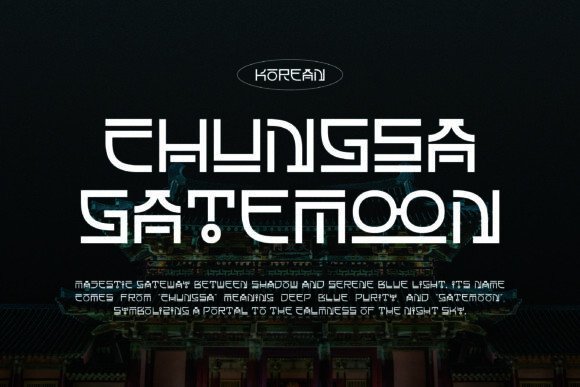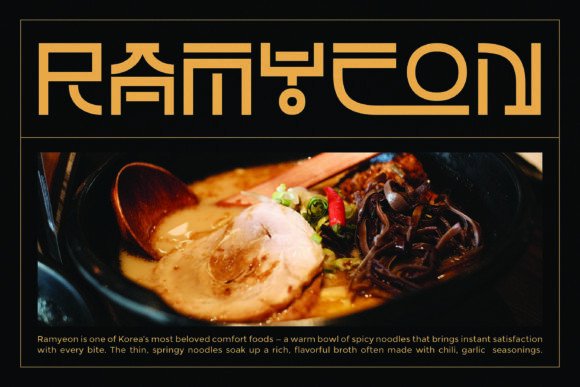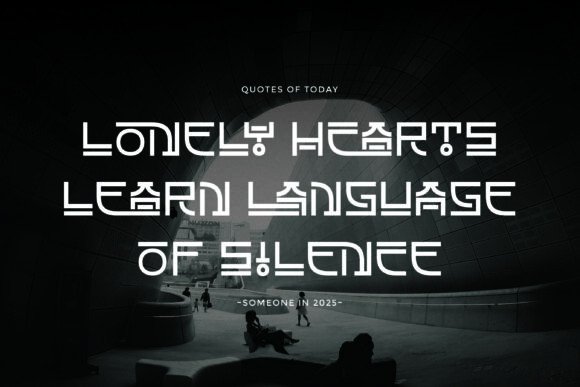
Introduction to Namonjo Font
Namonjo is a unique display typeface inspired by the structure and aesthetic of Korean Hangul script, blending tradition with modern, geometric styling.
This font features strong, mono-linear strokes, sharp angles, and distinctively rounded terminals, creating a compelling fusion of cultural influence and minimalist design The Namonjo typeface is ideal for projects seeking a clean, bold look that references East Asian typographic heritage.
Key Features of Namonjo Font
Why Choose Namonjo Font?